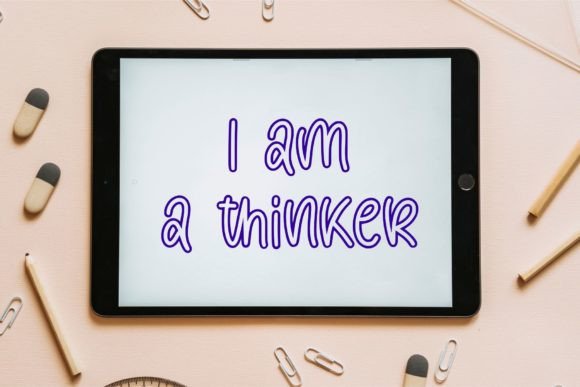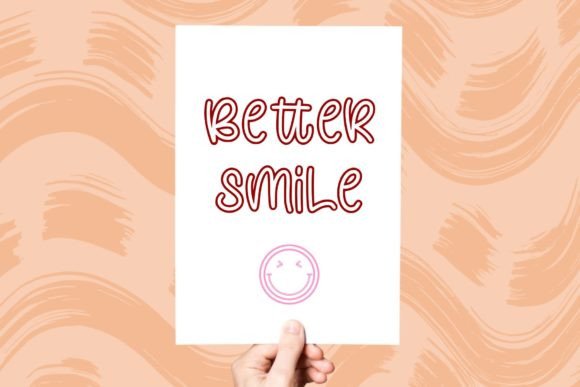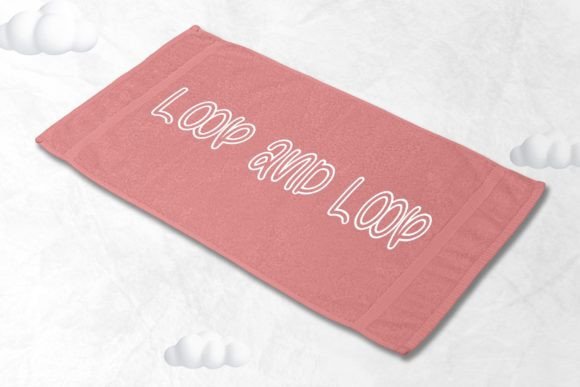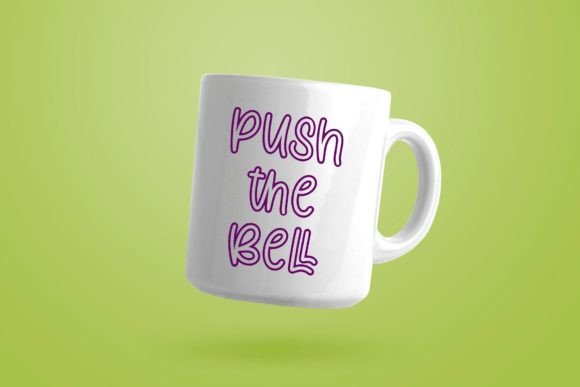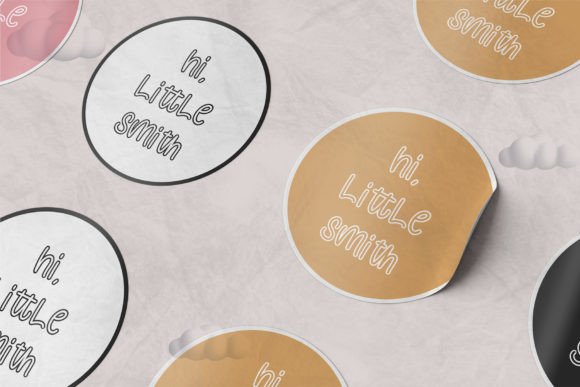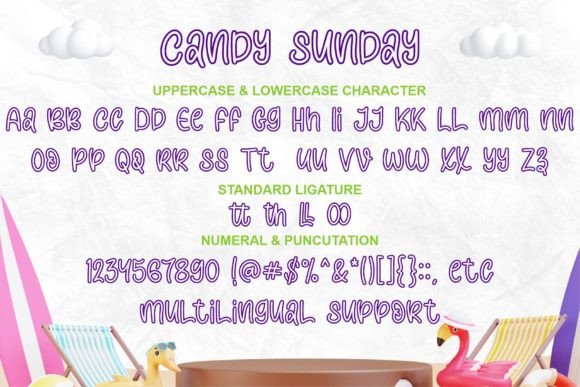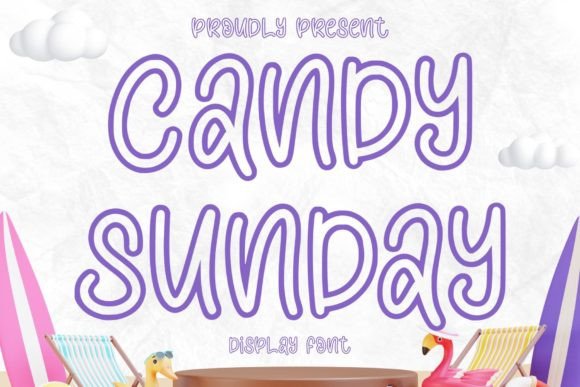
Candy Sunday Font: The Sweetest Way to Make Your Message Stand Out
In the world of typography, fonts play a crucial role in conveying messages, expressing emotions, and creating brand identities. Among the numerous fonts available, Candy Sunday Font stands out with its bold, exquisite design that’s sure to grab attention. This stunning font is perfect for designers, crafters, and marketers looking to add a touch of sweetness to their advertising, packaging, and branding projects.
The Charm of Candy Sunday Font
Candy Sunday Font is a masterpiece of typographic design, boasting intricate detailing and unique letterforms that create a powerful, attention-grabbing look. Its bold design makes it perfect for headlines, titles, and short phrases that need to make a lasting impression. The font’s irresistible charm and visual appeal are sure to captivate your audience, making it an excellent choice for various design projects.
Perfect for Advertising, Packaging, and Branding
Whether you’re working on an advertising campaign, designing packaging for a new product, or creating a brand identity, Candy Sunday Font is the perfect choice. Its bold, eye-catching design ensures that your message stands out from the crowd, making it an excellent tool for marketers and designers. The font’s versatility allows it to be used in various contexts, from digital media to print materials.
Key Features of Candy Sunday Font
- Bold and Exquisite Design: Candy Sunday Font features a bold, exquisite design that’s sure to grab attention.
- Intricate Detailing: The font’s intricate detailing adds a touch of sophistication and elegance to your designs.
- Unique Letterforms: The font’s unique letterforms create a powerful, attention-grabbing look that’s perfect for headlines and titles.
- Versatility: Candy Sunday Font is versatile and can be used in various design projects, from advertising to packaging and branding.
Tips for Using Candy Sunday Font
To get the most out of Candy Sunday Font, here are some tips to keep in mind:
- Use it Sparingly: While Candy Sunday Font is attention-grabbing, it’s best to use it sparingly to avoid overwhelming your audience.
- Pair it with Simple Fonts: Pair Candy Sunday Font with simple, clean fonts to create a striking contrast and make your message stand out.
- Experiment with Colors: Experiment with different colors to find the perfect combination that complements your brand identity.
Who Can Benefit from Candy Sunday Font?
Candy Sunday Font is perfect for:
- Designers: Graphic designers, typographers, and visual designers can add a touch of sweetness to their designs with Candy Sunday Font.
- Crafters: Crafters, makers, and DIY enthusiasts can use Candy Sunday Font to create eye-catching titles, labels, and signs.
- Marketers: Marketers and advertisers can use Candy Sunday Font to create attention-grabbing headlines and titles that drive engagement.
Candy Sunday Font is a stunning font that demands attention with its exquisite, bold design. Its intricate detailing and unique letterforms create a powerful, attention-grabbing look that’s perfect for advertising, packaging, and branding projects. With its versatility, key features, and irresistible charm, Candy Sunday Font is sure to become a favorite among designers, crafters, and marketers. So why wait? Get your hands on Candy Sunday Font today and make your message stand out with its sweet, irresistible charm!